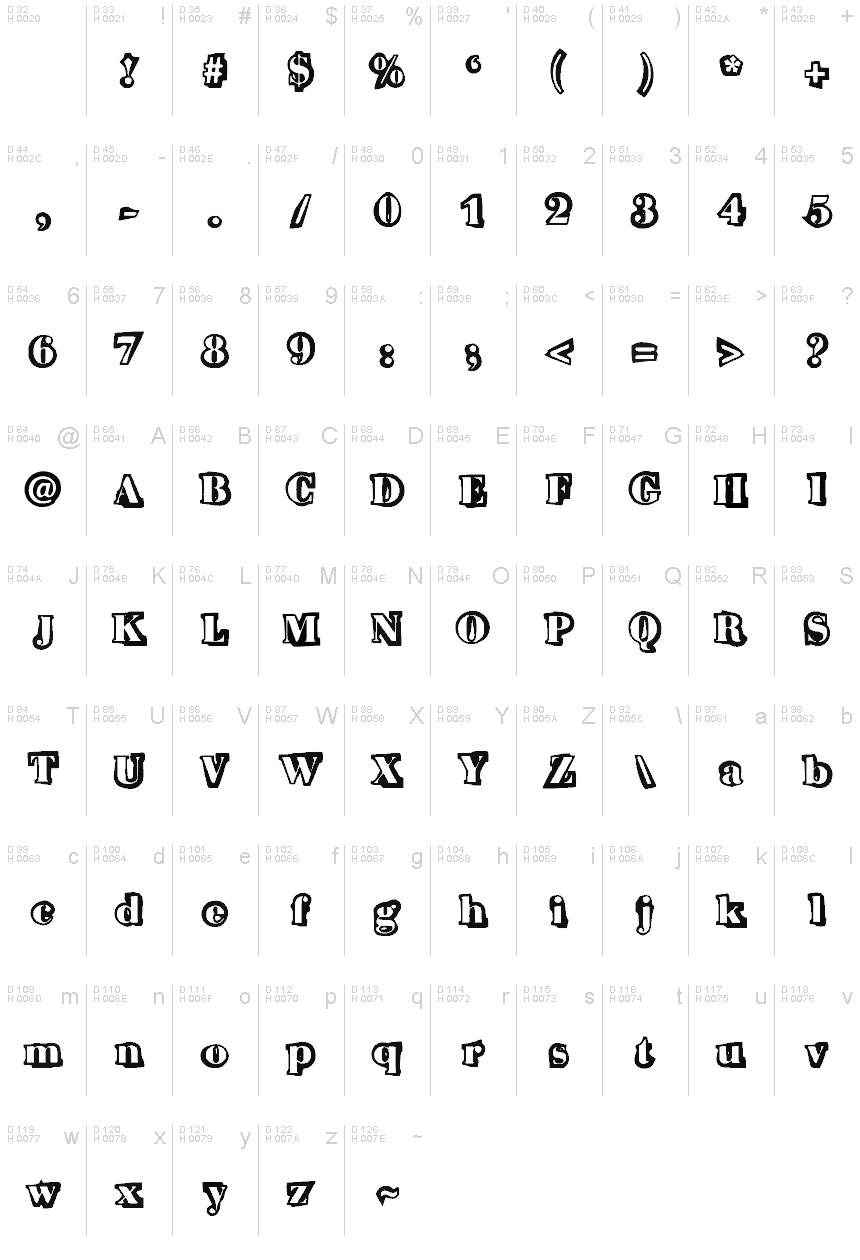
Morris
Morris is a bold, distorted display font designed by Leonard Posavec of LeoSupply.co. Its striking aesthetic features an exaggerated, eye-catching letterform that immediately commands attention.
The font's visual tension and organic, almost hand-drawn quality give it a distinct personality, lending a sense of energy and dynamism to any design. This versatile font excels at headlines, titles, and branding applications where a strong, memorable impact is desired.
Its unconventional style could also find effective use in editorial layouts, packaging, and advertising to create a bold, visually arresting presence.